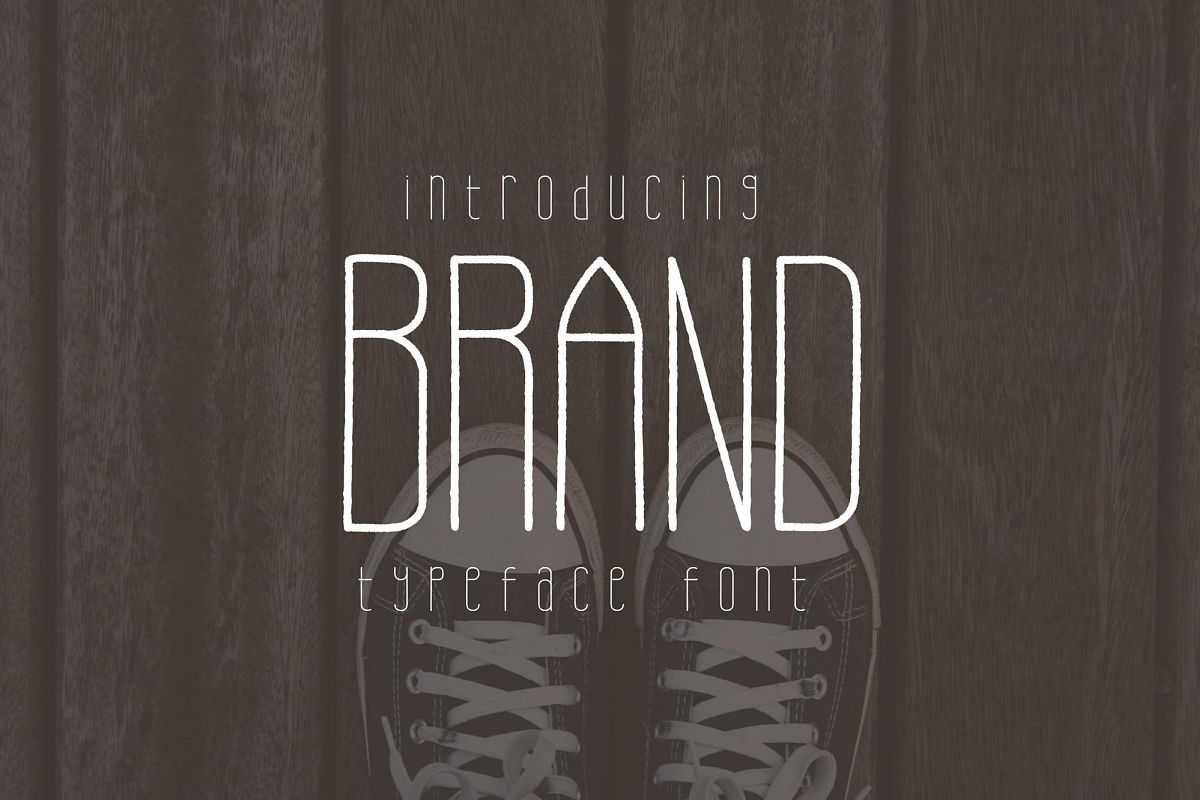
Brand Typeface Font
Introducing Brand Typeface Font! The unique and sweet handwritten typeface that is designed specifically for wedding-related projects, such as envelope addressing, invitations, and signage. It looks fantastic for branding, logos, and websites as well!